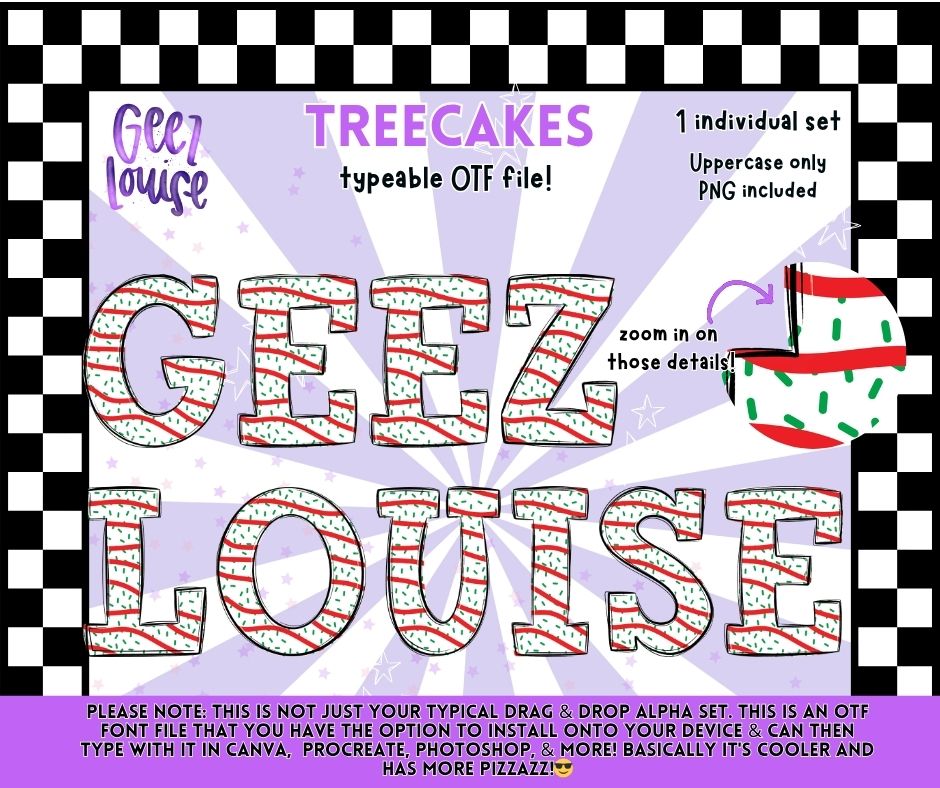
Treecakes Alpha – Christmas Sprinkle OTF Font with PNG Letters (Uppercase)
Get festive and fun with the Treecakes Alpha OTF Font — a Christmas-themed typeable alphabet packed with holiday icing and sprinkles! Perfect for cookie-inspired designs, small shop merch, and everything merry and bright.
Sweeten up your Christmas creations with a font that’s sprinkled with holiday cheer! 🎅✨🎨